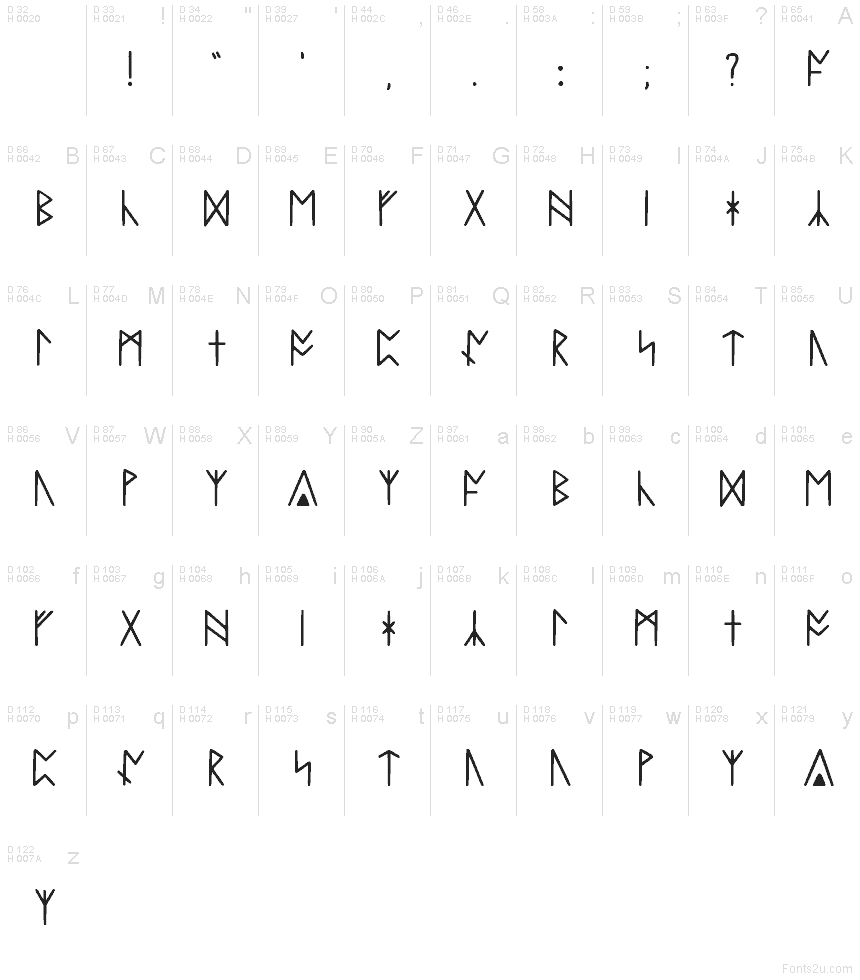
Dragonscript Runes Regular
Dragonscript Runes font by Rebecca Shusatck is a free runes dingbats font. Etched with sharp, chiseled strokes and tall, ritual-like forms, it reads like symbols scratched into obsidian. The angular geometry and slightly uneven rhythm give it a believable “found artifact” texture, delivering instant mythic atmosphere without resorting to clichés.
Using Dragonscript Runes, you can brand fantasy book covers, tabletop RPG modules, treasure maps, game HUD elements, festival posters, and craft beer labels with cohesive lore. The tight vertical tension keeps icons legible at medium sizes, while larger settings feel monumental. Pair with a clean geometric sans for body copy, and let this free font handle the mystique.